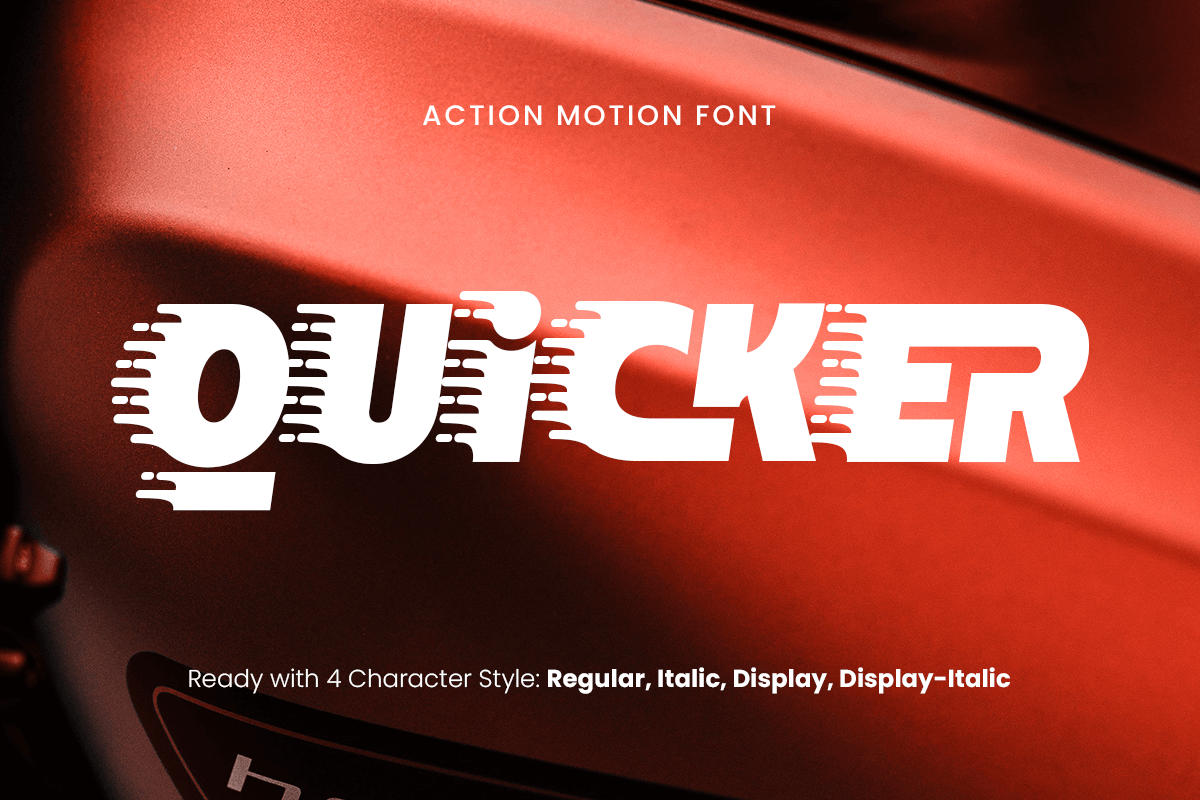
Quicker
-Action Motion Font
Quicker is a high-energy font crafted to deliver a sense of speed and motion to your designs. Its bold strokes and dynamic angles make it a perfect choice for sports branding, action-themed projects, and modern digital visuals. Quicker brings an electrifying presence to every creation, ensuring your message commands attention.
Inspired by the fast-paced world of action and adventure, Quicker captures the essence of movement and excitement. Whether used for event posters, dynamic logos, or high-energy marketing campaigns, this font seamlessly blends a futuristic feel with powerful design elements.
Take your designs to the next level with Quicker—a font designed to make an impact in the most fast-paced, energetic environments.
Quicker Action Motion Font Features:
• Bold and Dynamic Character Set